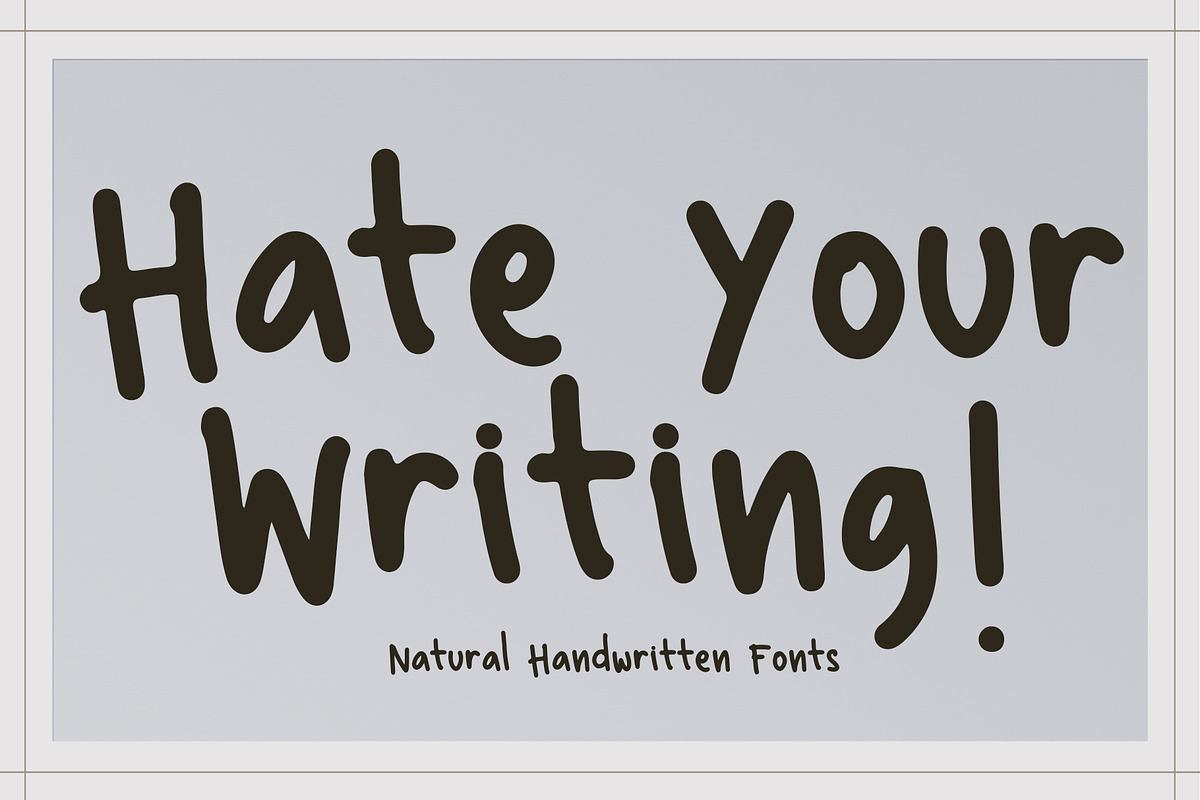
Hate Your Writing Fonts Free Download
Hate Your Writing Fonts Free Download is a quirky, edgy handwritten typeface that captures the raw, unfiltered vibe of quick notes and chaotic scribbles. Perfect for grunge designs, expressive posters, alternative branding, zines, and rebellious social media graphics, this font thrives in spaces where imperfection is a statement.
With uneven strokes, jittery lines, and an intentionally messy appearance, Hate Your Writing adds attitude and emotional punch to any layout. It’s great for creatives looking to break the rules and inject authenticity and edge into their work.